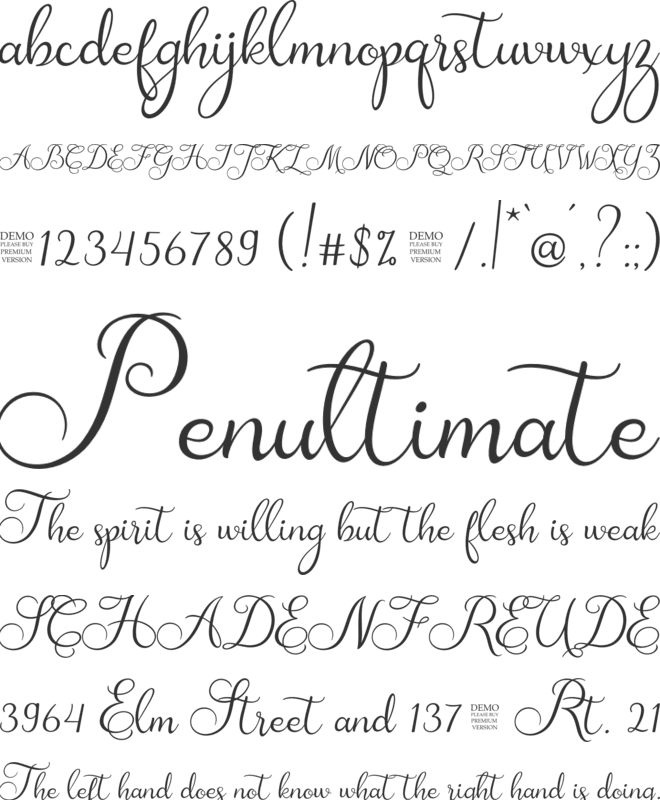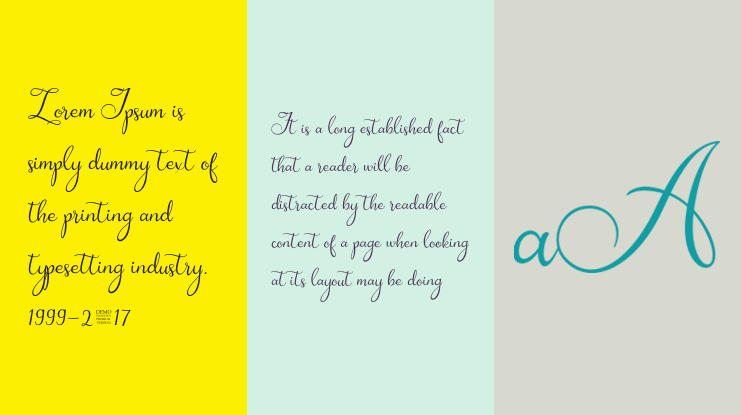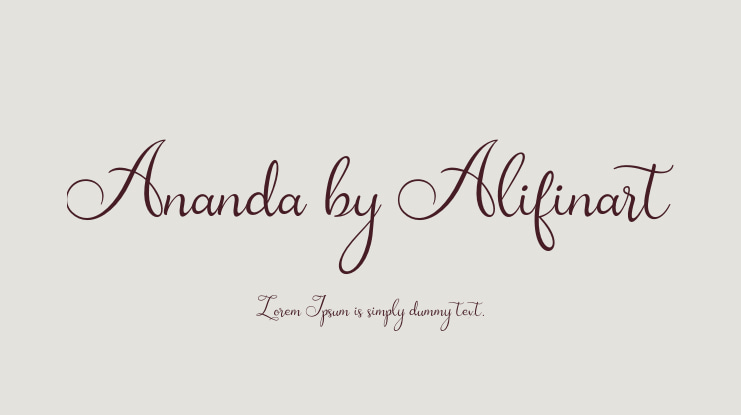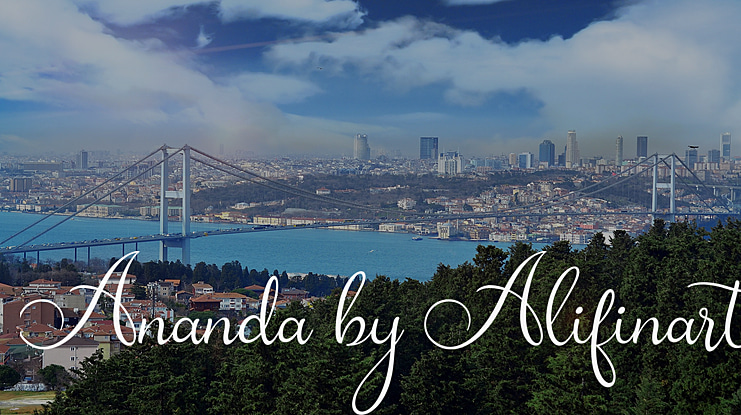
Amanah Script (Ananda) is a lovely and genuine handwritten font. It is the best choice for creating eye catching logos, branding and quotes. Every letter has a unique and beautiful touch, which will make your design come alive!
Introducing Ananda Lovely Handwritten Font
Ananda is a lovely and genuine handwritten font. It is the best choice for creating eye catching logos, branding and quotes. Every letter has a unique and beautiful touch, which will make your design come alive!